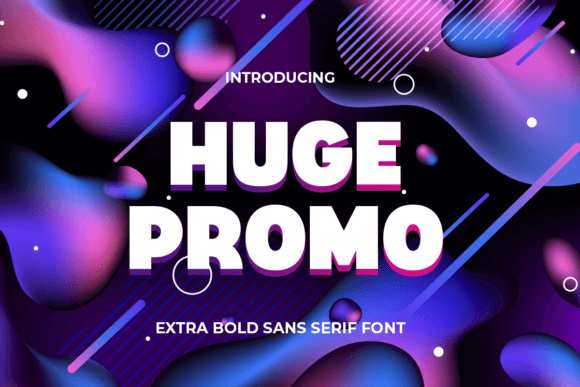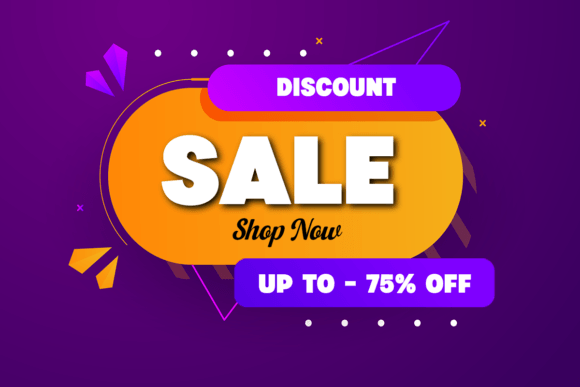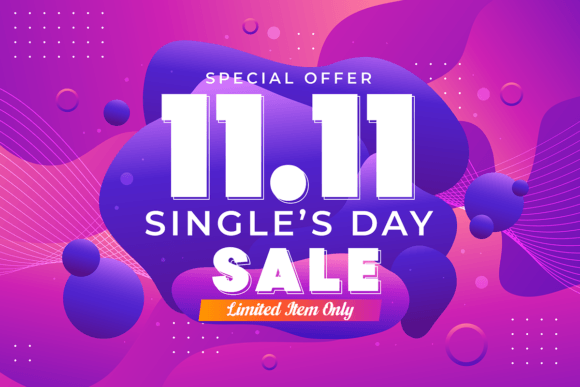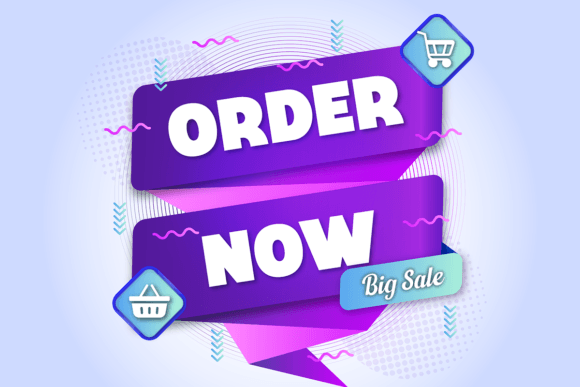
Huge Promo Font
About the Huge Promo Font
We are excited to introduce Huge Promo Font, a must-have typeface for any serious designer. Huge Promo is an extra bold sans serif font with a bold body, perfect for headline use on promotion, social media, logos, invitations and so much more.
Its strong, bold forms make it ideal for large-scale headlines, posters, and branding applications where a powerful visual impact is desired. It excels in short, impactful statements and works particularly well for projects needing a modern and assertive feel. Avoid using Huge Promo for body text or UI elements; its weight and boldness would hinder readability in smaller sizes or continuous text.
Pair it with a clean, geometric sans-serif like Montserrat for a contemporary, balanced look, or a classic serif such as Garamond for a sophisticated contrast. For a more playful feel, consider pairing it with a rounded sans-serif like Open Sans. Its core personality is bold, confident, and contemporary.
Huge Promo is best suited for brands aiming for a strong, memorable presence. Think energetic product launches, tech companies, or bold fashion statements. The font’s inherent energy and impact make it unsuitable for projects requiring subtlety or elegance.
Huge Promo Font Usage Examples
Huge Promo Font Example